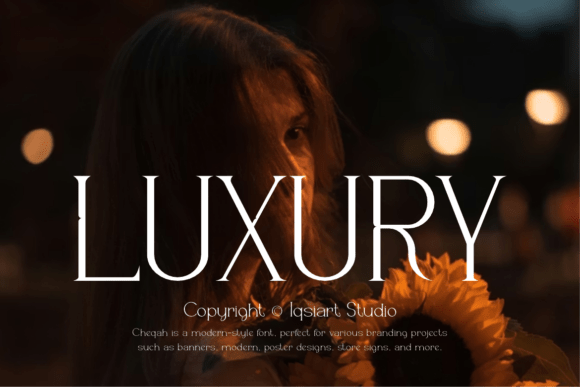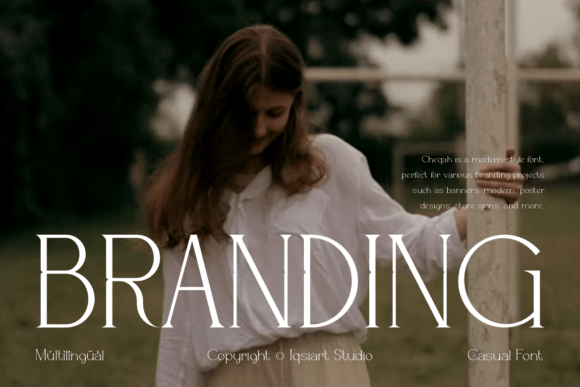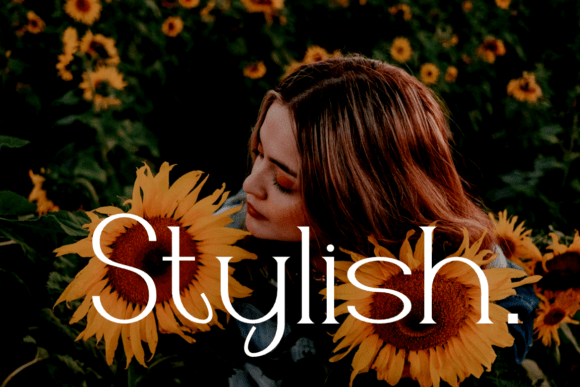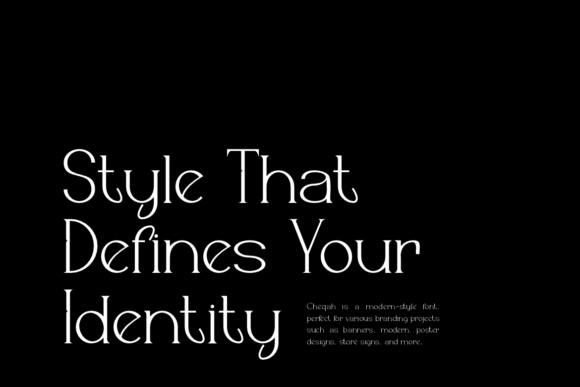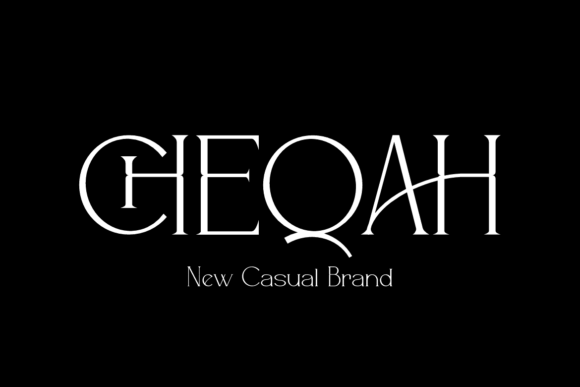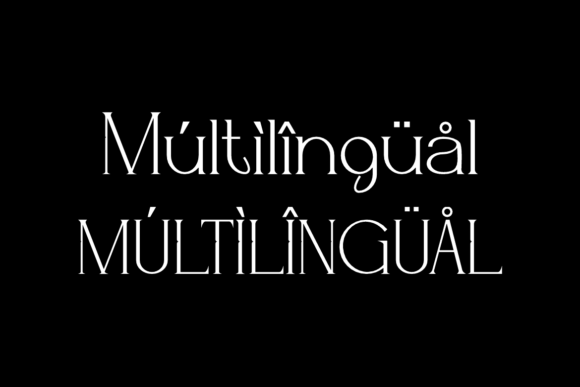
Introducing Cheqah Font: A Modern and Authentic Display Typeface
Are you tired of using the same old fonts for your design projects? Look no further! Cheqah Font is a modern and authentic display typeface that is sure to elevate your designs to the next level. With its unique and stylish aesthetic, Cheqah Font is perfect for a variety of design needs, from branding and advertising to packaging and digital media.
A Versatile Font for All Your Design Needs
Cheqah Font is a highly versatile font that can be used for a wide range of design projects. Its modern and sleek design makes it perfect for creating eye-catching headlines, titles, and captions. The font is also highly legible, making it suitable for use in body text and other smaller sizes.
Multilingual Support for Global Designers
At [Your Profile], we’re committed to providing fonts that are accessible to designers all around the world. That’s why Cheqah Font includes multilingual support, allowing you to use the font in a variety of languages and scripts. Whether you’re designing for a global audience or simply want to add some international flair to your project, Cheqah Font has got you covered.
Why Choose Cheqah Font?
So why choose Cheqah Font for your design projects? Here are just a few reasons:
• Unique and stylish aesthetic: Cheqah Font has a distinctive and eye-catching design that will set your project apart from the crowd.
• Highly versatile: The font can be used for a wide range of design projects, from branding and advertising to packaging and digital media.
• Multilingual support: Cheqah Font includes multilingual support, making it perfect for designers who work with global clients or want to add some international flair to their project.
Get Ready to Elevate Your Designs with Cheqah Font
Whether you’re a professional designer or a crafty DIY enthusiast, Cheqah Font is the perfect addition to your font collection. With its modern and authentic design, versatile style, and multilingual support, Cheqah Font is sure to become a go-to font for all your design needs.